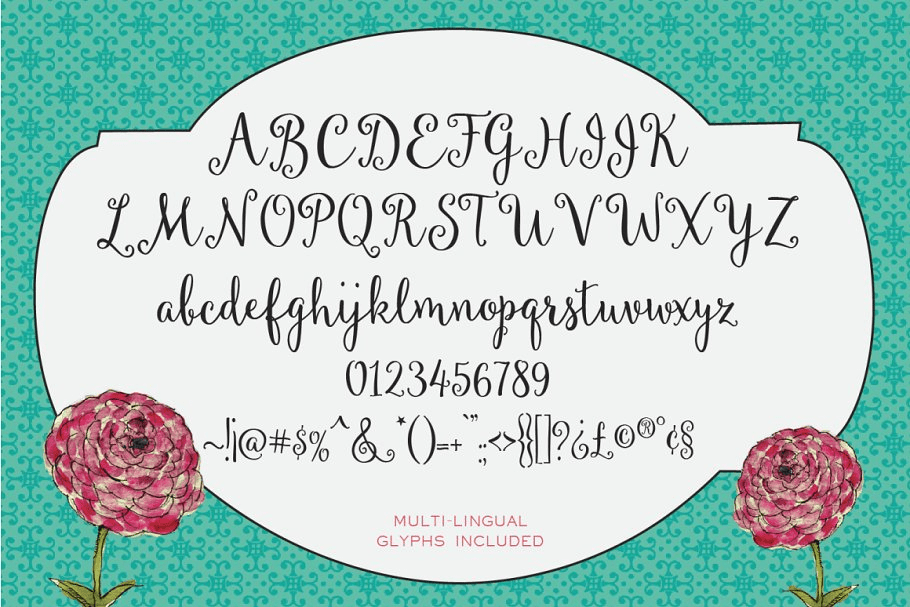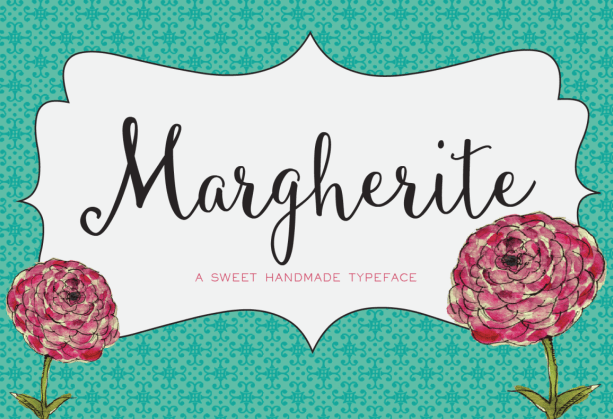
Margherite
About Margherite
Margherite is sweet feminine typeface, hand drawn characters dance decoratively along the baseline. Available for both personal and commercial use. Download and use The Margherite Script for anything and everything. Including over 200 different hand…